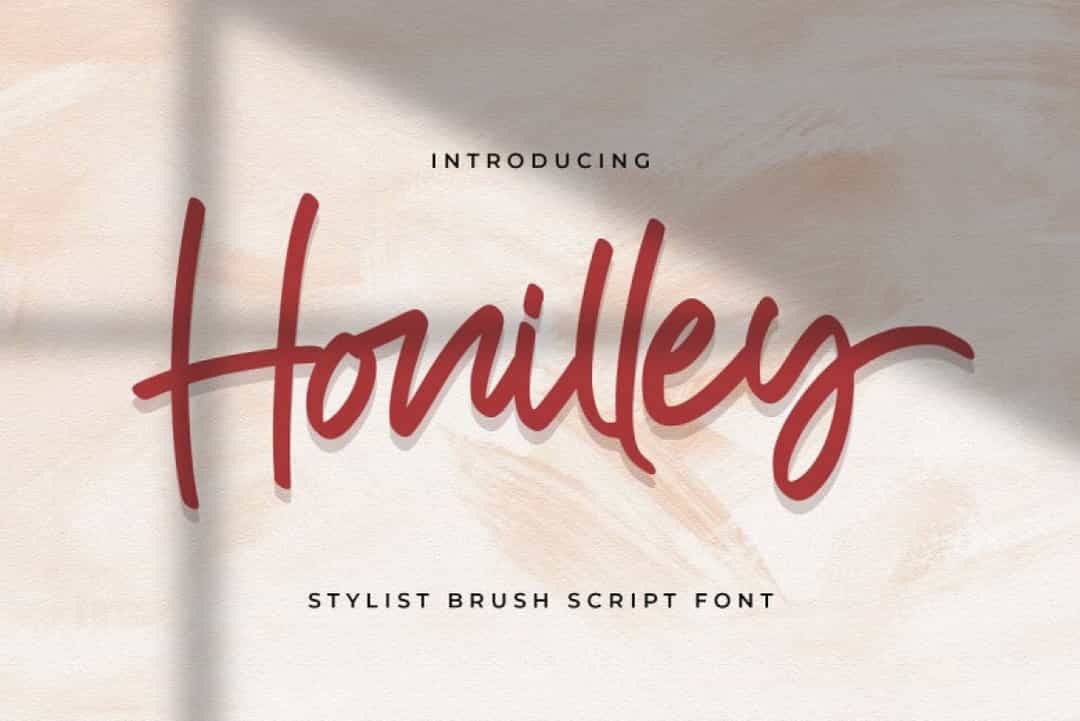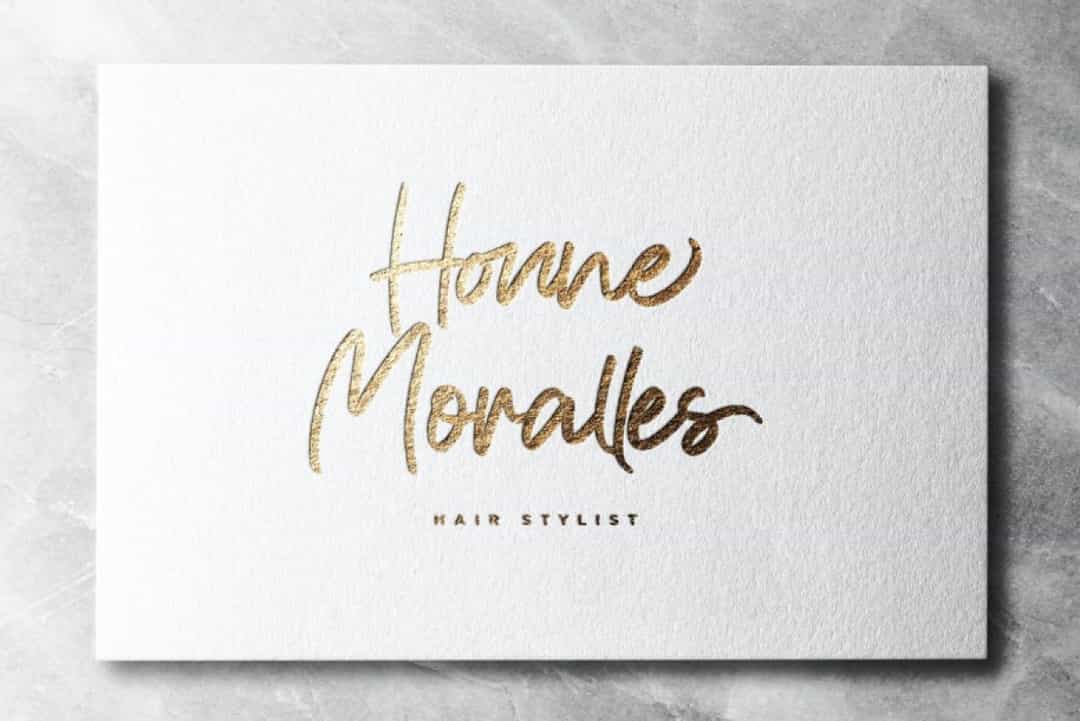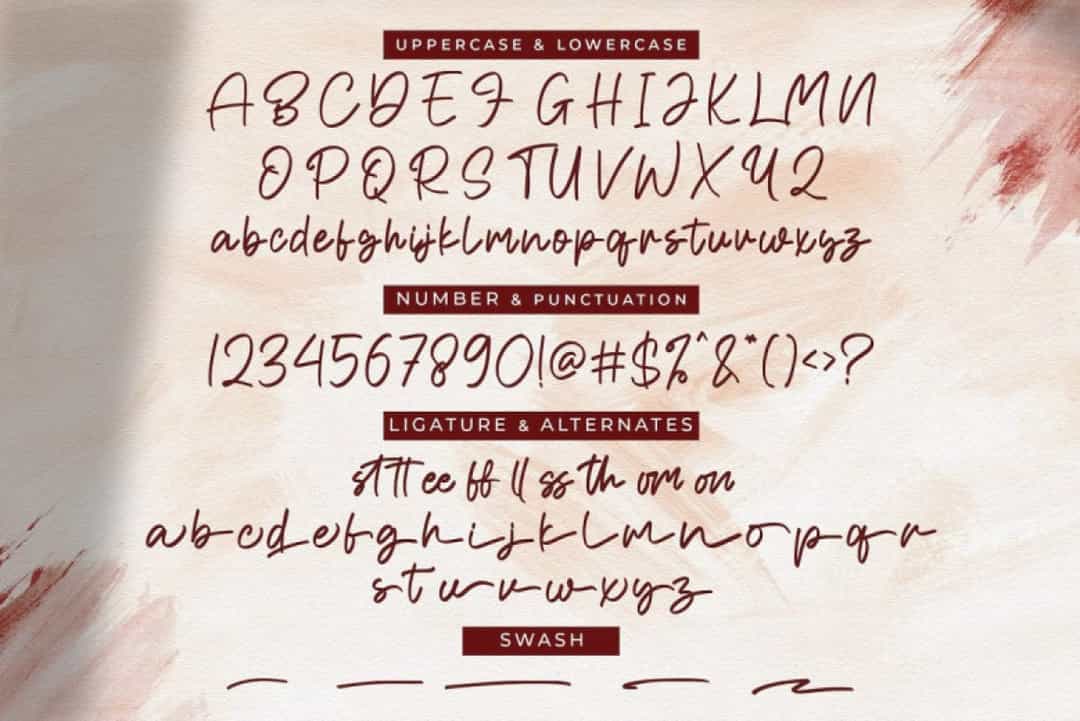
Honilley is an elegant font design with balanced characters that can be used in different projects. Put it into your most creative ideas to make them real!